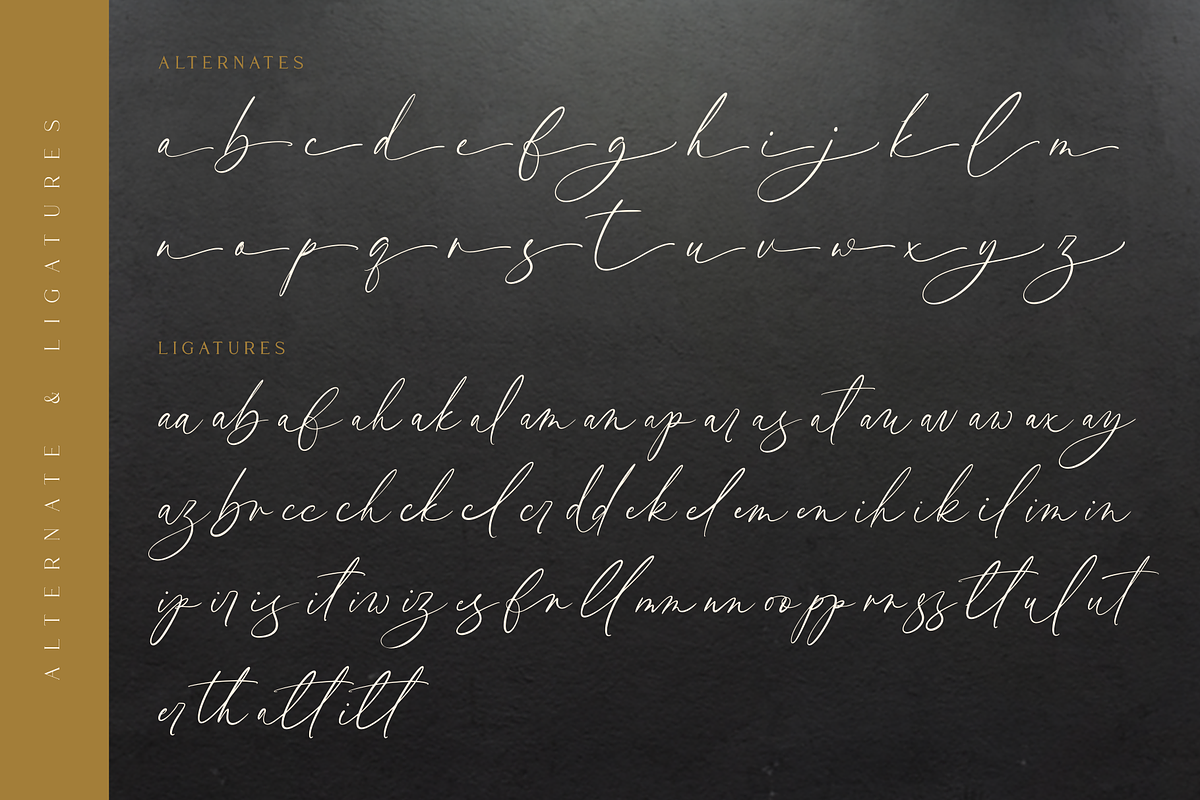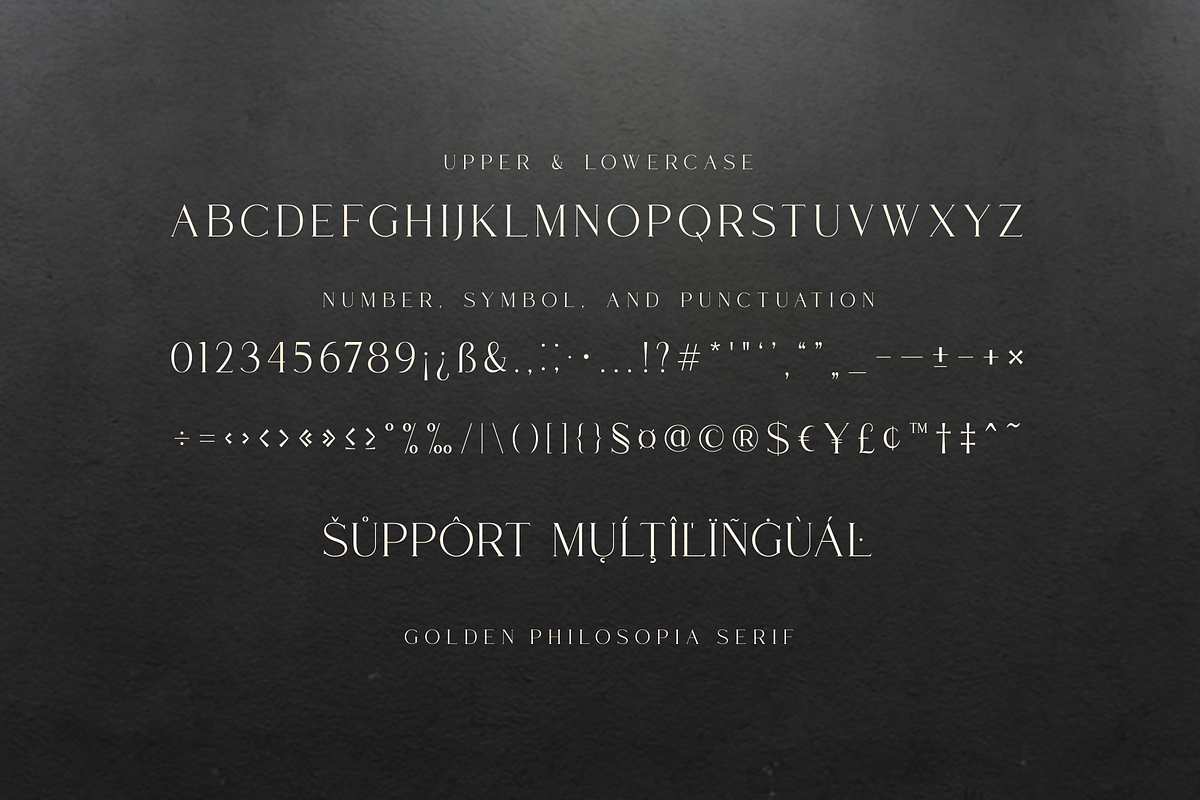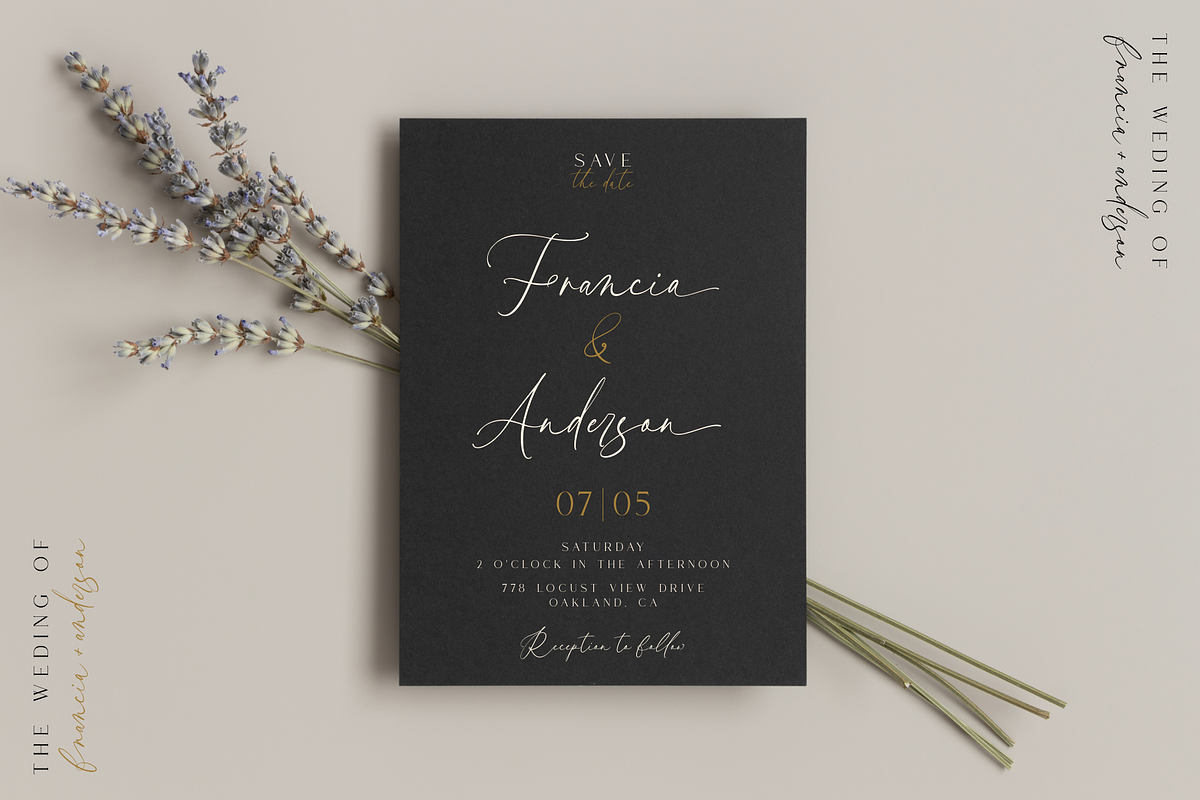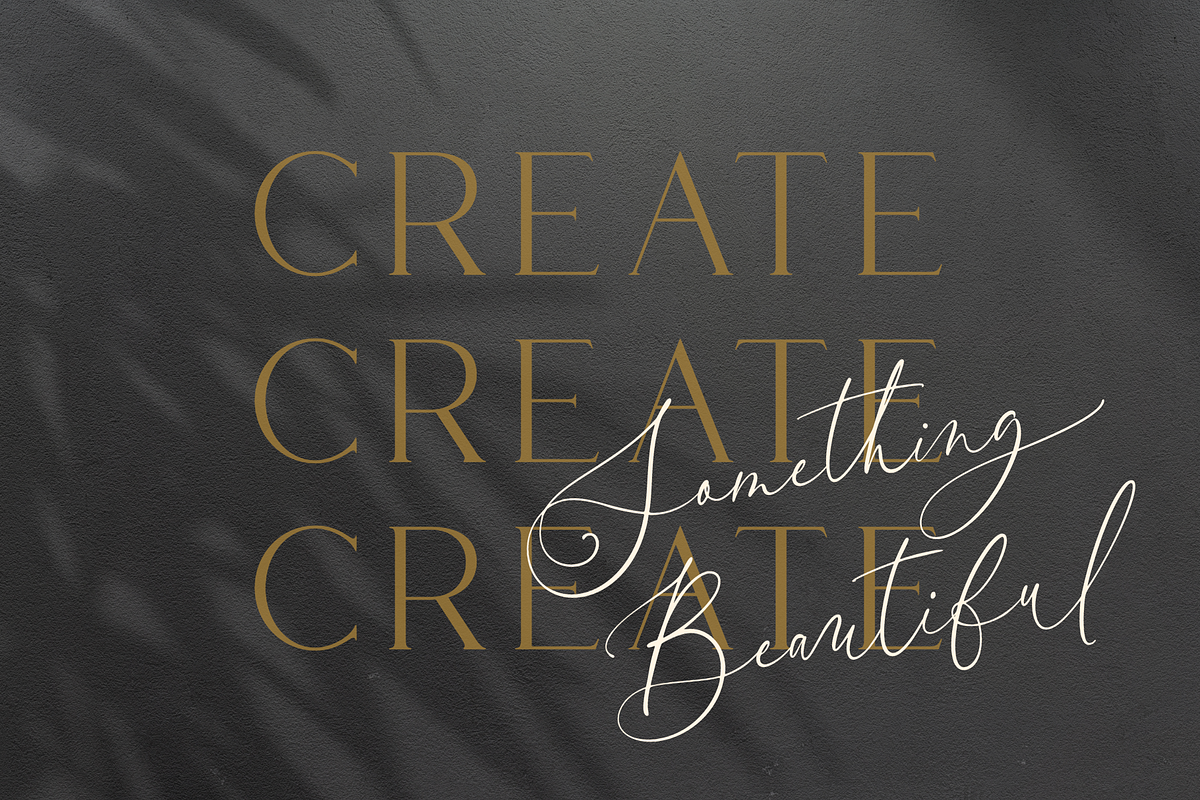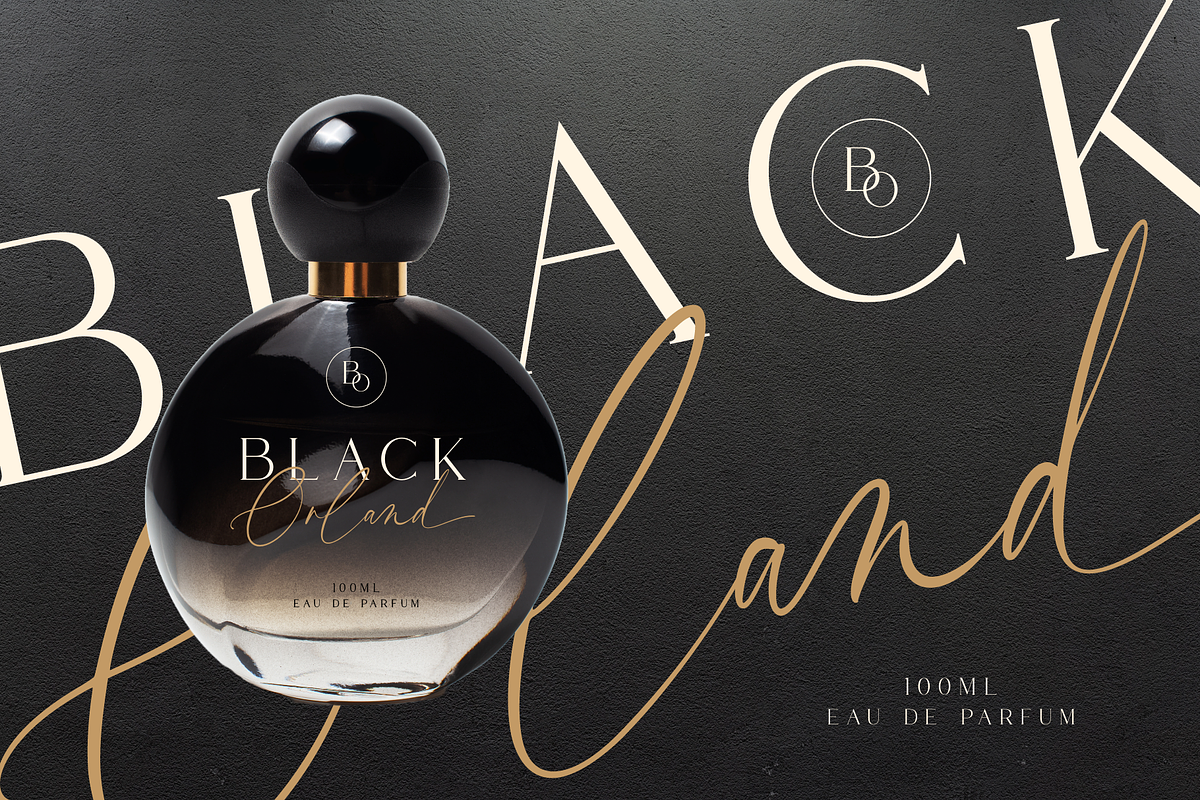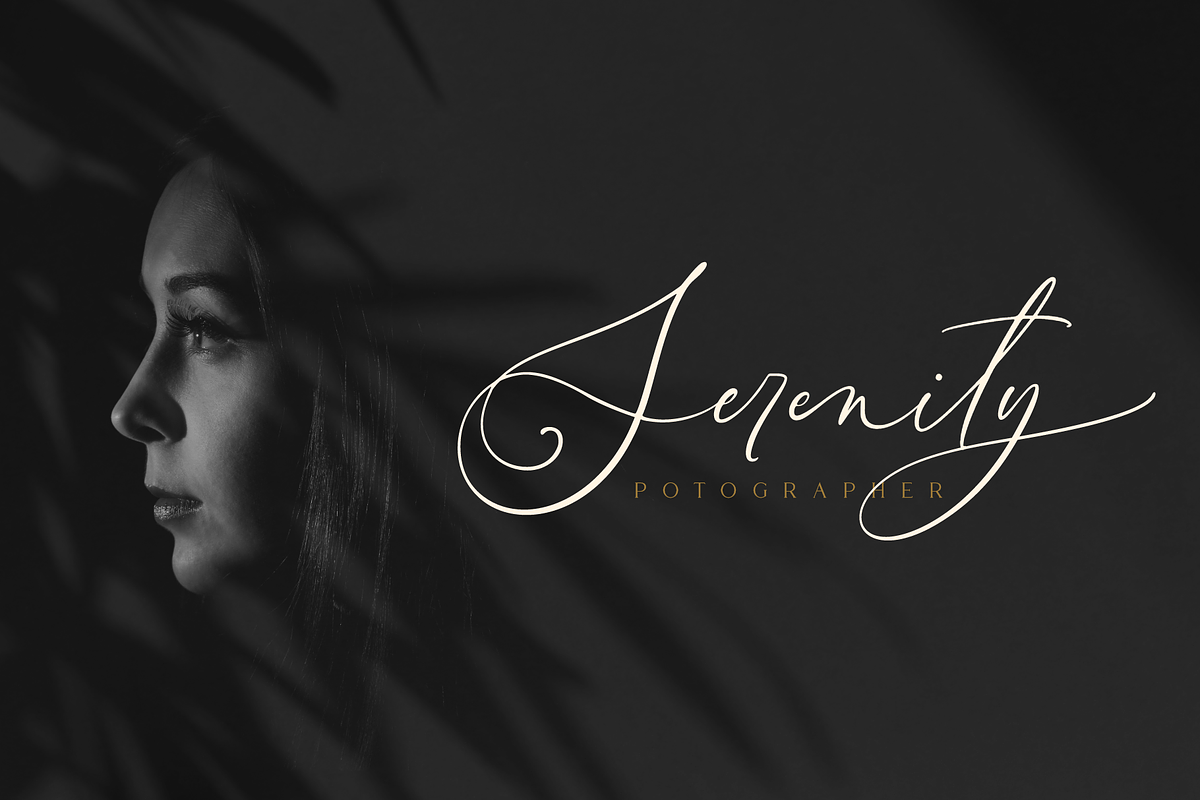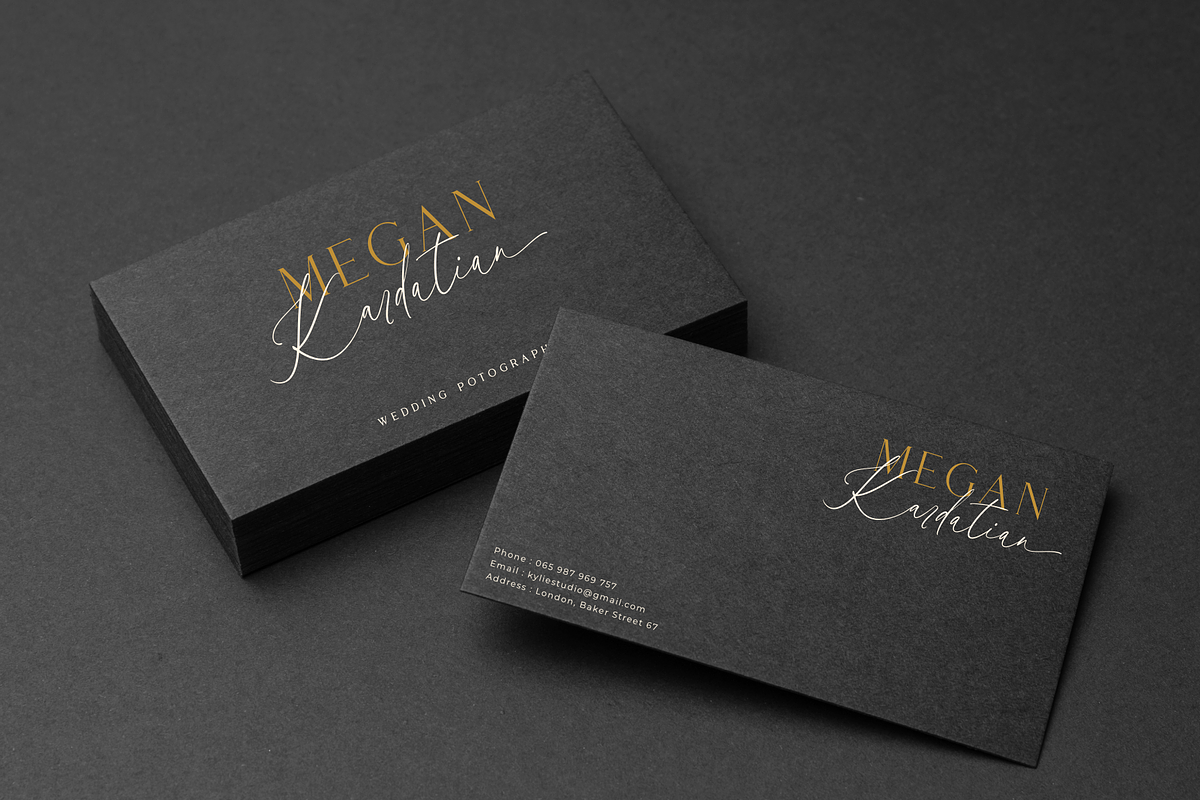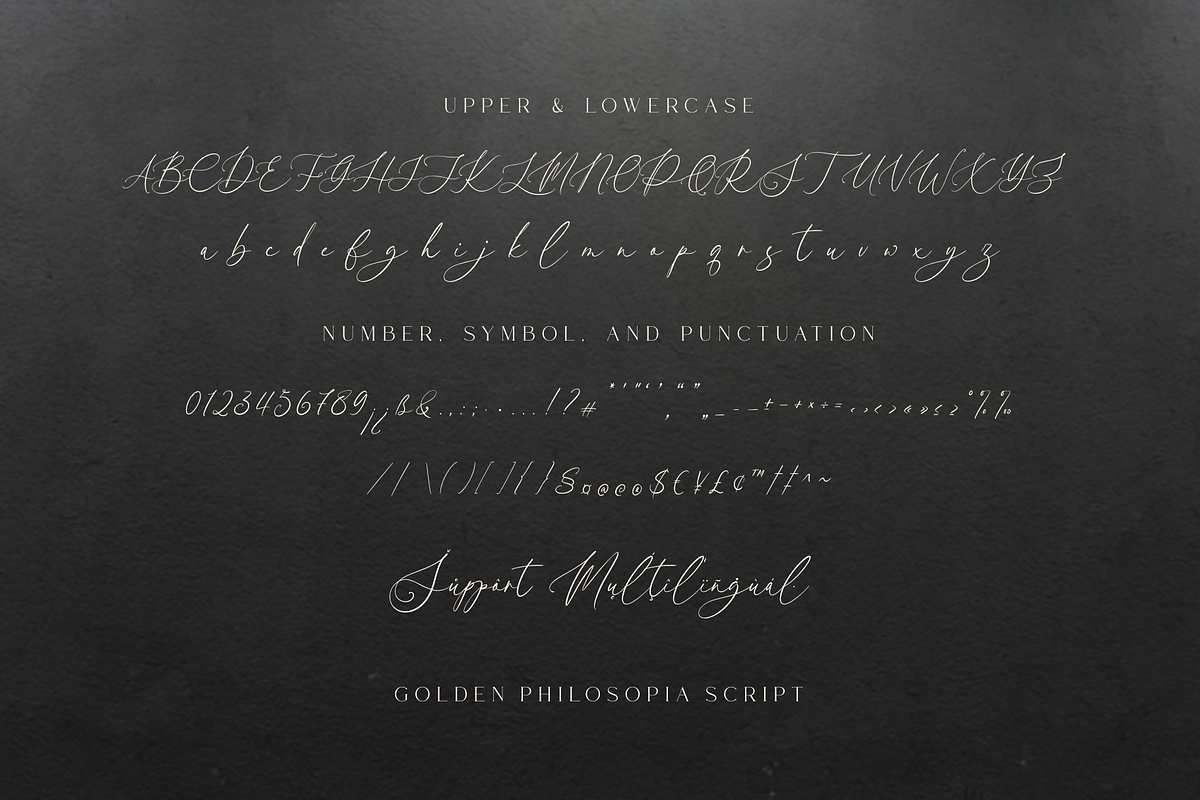
Golden Philosopia Font Duo
Introducing Golden Philosopia – a stylish and modern font duo featuring a sleek script and sophisticated serif typeface. Perfect for designs that need a modern and stylish touch, this duo offers alternate characters in the script style for added style. With multilingual support, it's versatile and ideal for any project. Elevate your designs with the timeless elegance of Golden Philosopia today.
A set of uppercase and lowercase glyphs (allcaps serif version)
Number, symbol, and punctuation
Alternates, ligatures, and swashes (script version)